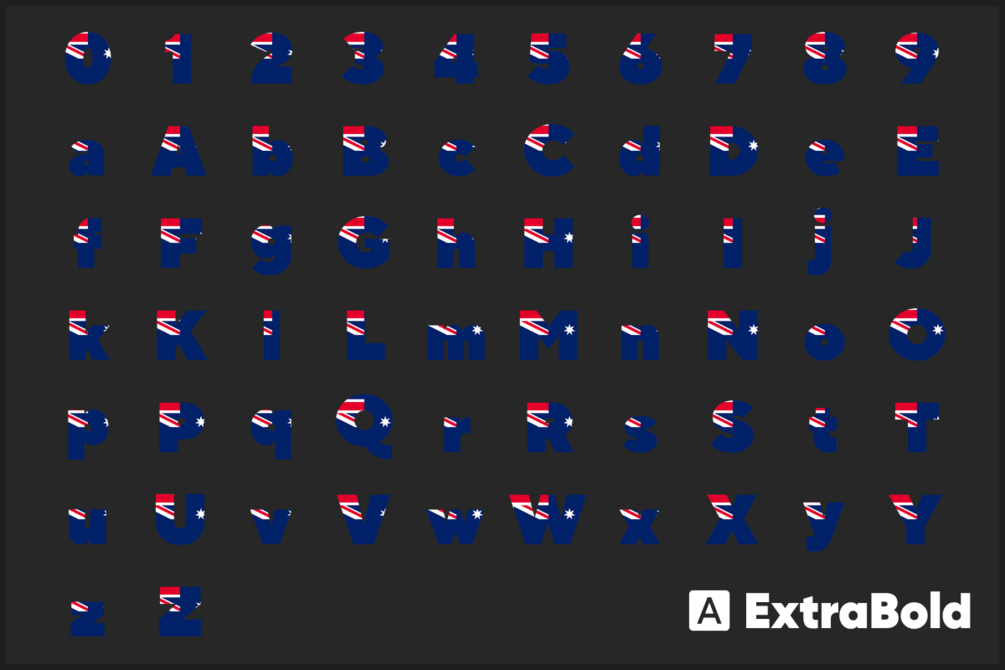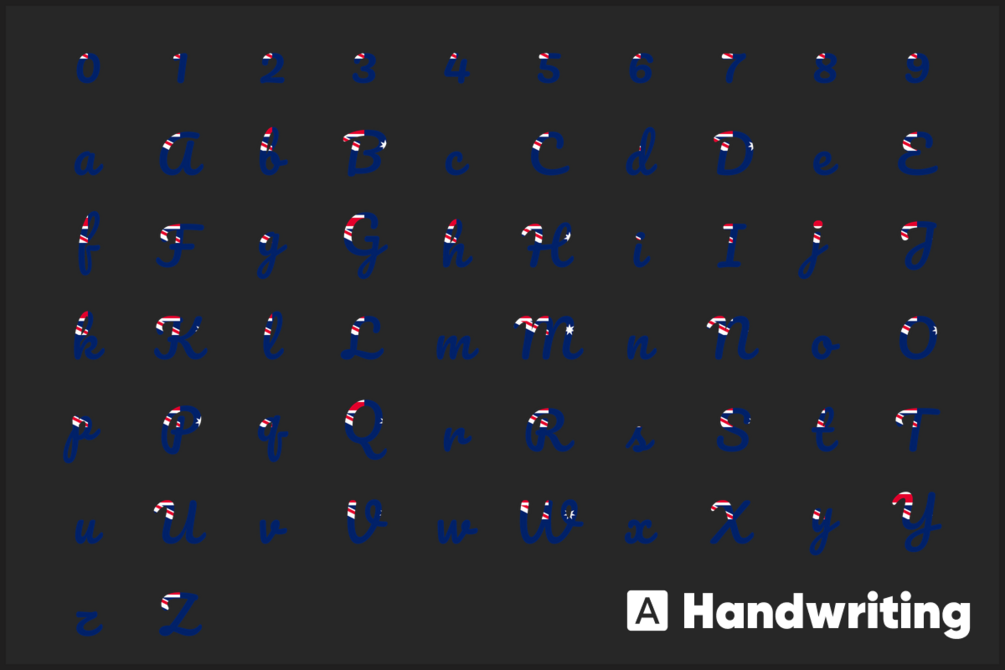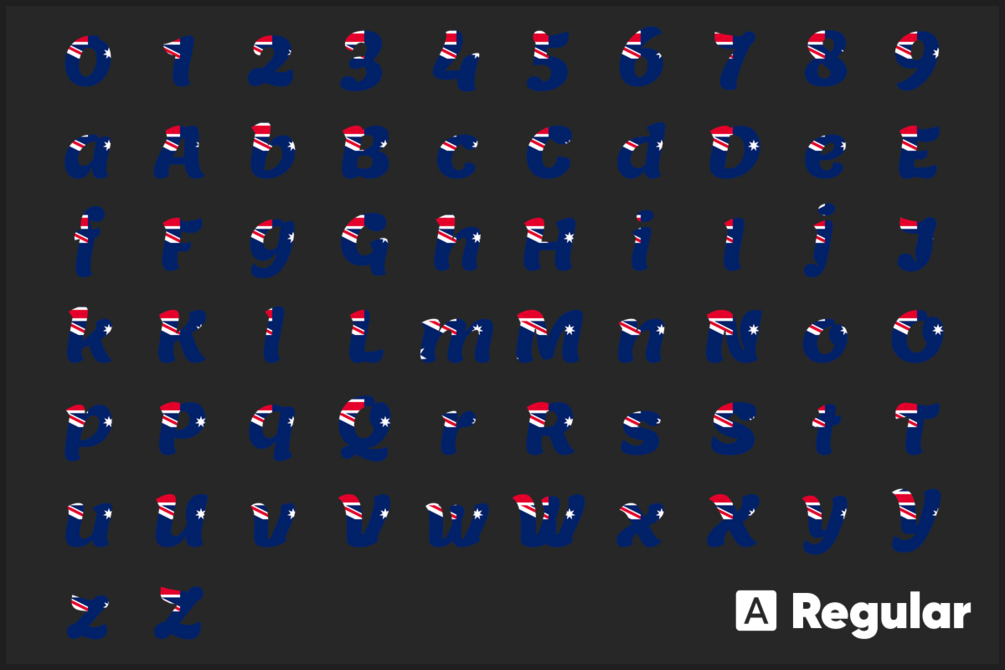
Australia Font free download
Introducing Australia Font free download Flag Font, Letters! These beautiful country font images are ideal for all your crafting needs. Use Australia Font free download flag PNG images for creating t-shirt designs, scrapbooking, photo albums, cards, mugs, prints, and more.